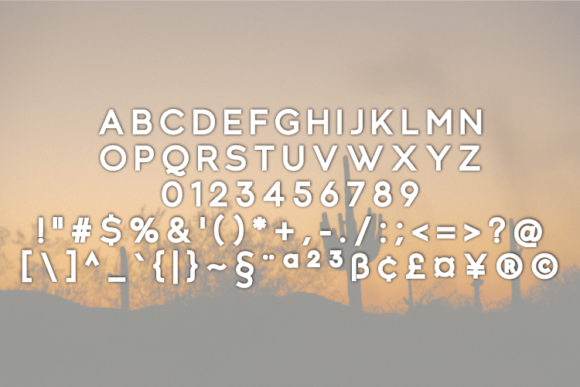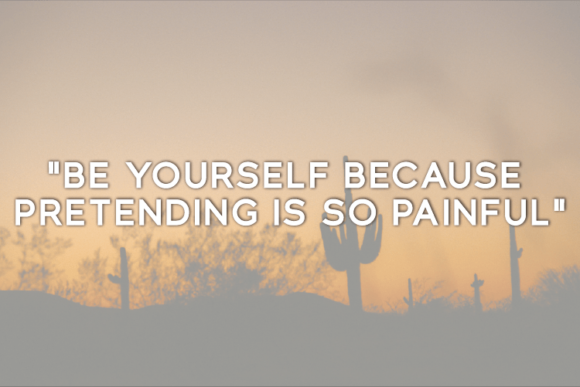
Introduction to Nonature Font
Have you ever found yourself stuck on a creative project, desperately searching for the perfect font to bring your vision to life? I know I have. There’s nothing quite like the thrill of discovering that one special font that makes all the difference in the world. For designers, a high-quality font can be a game-changer, elevating a project from good to great in an instant.
Enter the Nonature Font, a stunning sans-serif font that’s quickly become a go-to design resource for creatives around the globe. With its authentic, thick lettered style, Nonature Font is the perfect complement to any project you can imagine. From displays and headers to invitations and save the dates, this versatile font is sure to make a lasting impression.
What sets Nonature Font apart is its effortless blend of style and functionality. Whether you’re working on a wedding invitation or a corporate display, this font is sure to deliver. And the best part? It’s available for free download, making it an accessible design resource for designers of all levels.
Key Features of Nonature Font
- Unique, hand-drawn style with a natural, earthy feel
- Suitable for a variety of applications, from branding to editorial design
Honest Review: Nonature Font
As a designer, I’m always on the lookout for high-quality design resources that can elevate my creative projects. Recently, I had the chance to try out the Nonature Font, and I’m excited to share my thoughts with you.
- ✨ Elegant and minimalist design that’s perfect for modern branding and packaging.
- ✨ Clear and readable font that’s suitable for body text and headings.
- ⚠️ Limited character set, which might be a concern for designers working on complex projects.
- ⚠️ Not ideal for large-scale printing, as the font may lose its crispness.
Overall, I’m impressed with the Nonature Font’s clean design and versatility. While it may have some limitations, it’s an excellent addition to any designer’s toolkit. If you’re working on a creative project and need a high-quality font, I’d definitely recommend giving the Nonature Font a try.
The Nonature Font is ideal for various design projects, including:
- Brochures and flyers
- Social media graphics and advertisements
- Infographics and presentations
Tips for Getting the Most Out of Nonature Font
To get the most out of the Nonature Font, use it on a transparent background to create a clean and modern look. You can also experiment with different font combinations and sizes to add visual interest to your design.
Alternatives to Nonature Font
Open Sans is a high-quality, sans-serif font that is ideal for creative projects requiring a clean and modern design. It is available for free download and can be used with a transparent background. Open Sans is a great alternative to Nonature Font for designers who want a more straightforward, sans-serif font.
Comparison: While Nonature Font has a unique, natural feel, Open Sans is more versatile and can be used in a wide range of creative projects, from logos to body text.
Lato is a modern sans-serif font that is perfect for design projects requiring a high level of sophistication. It is a free download and can be used with a transparent background, making it an excellent choice for designers who want a clean and elegant look. Lato is a good alternative to Nonature Font for designers who want a more refined, high-quality font.
Comparison: While Nonature Font has a more natural, earthy feel, Lato is more polished and refined, making it suitable for high-end creative projects.